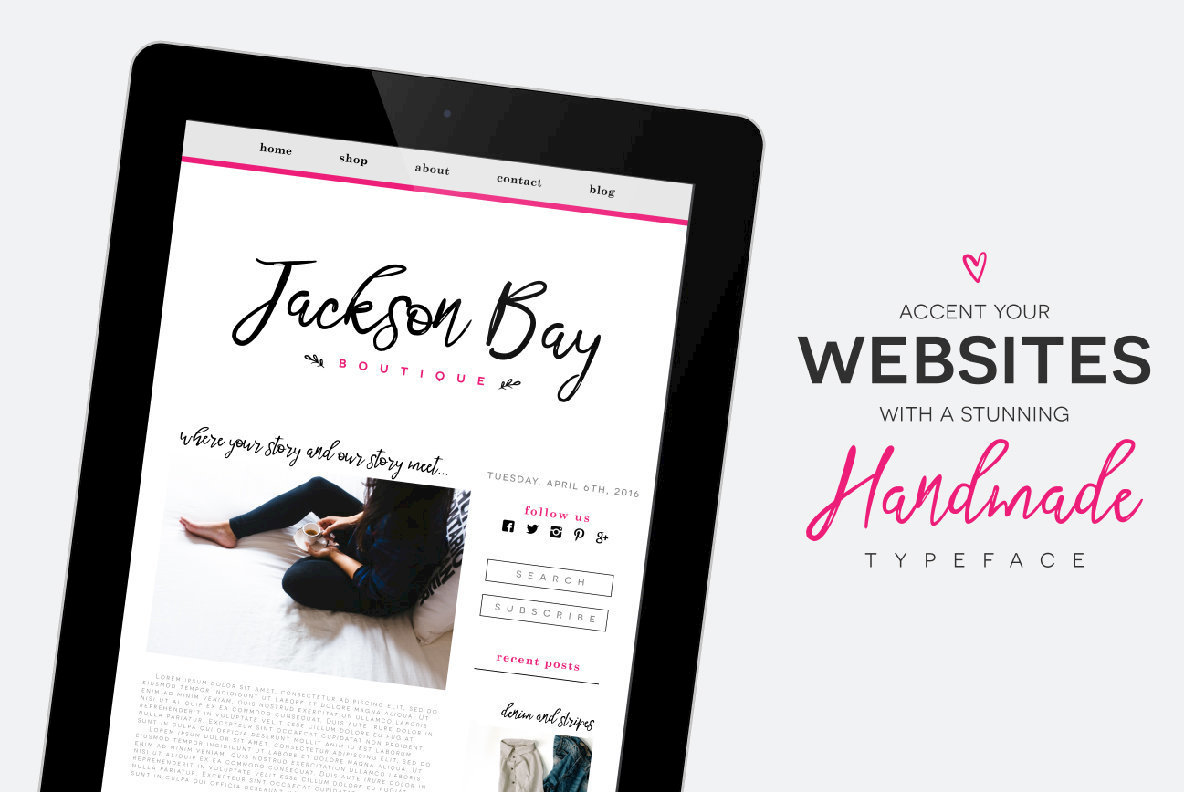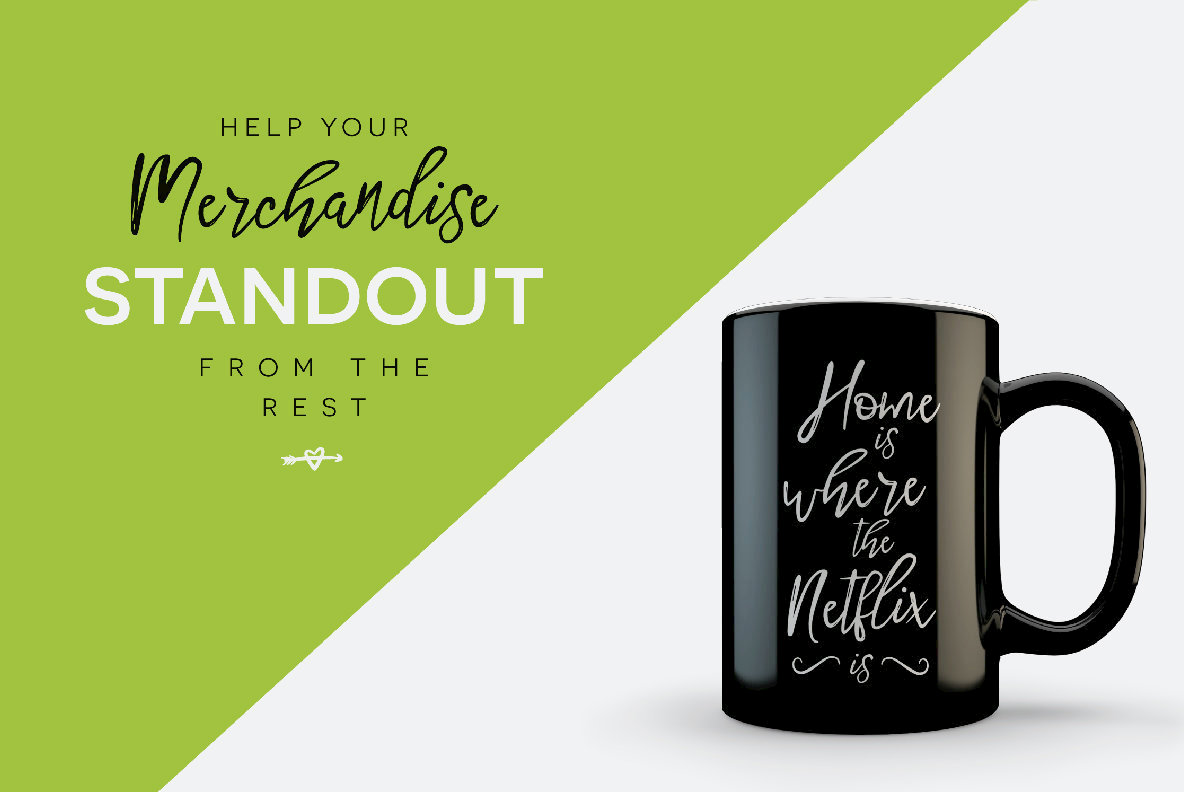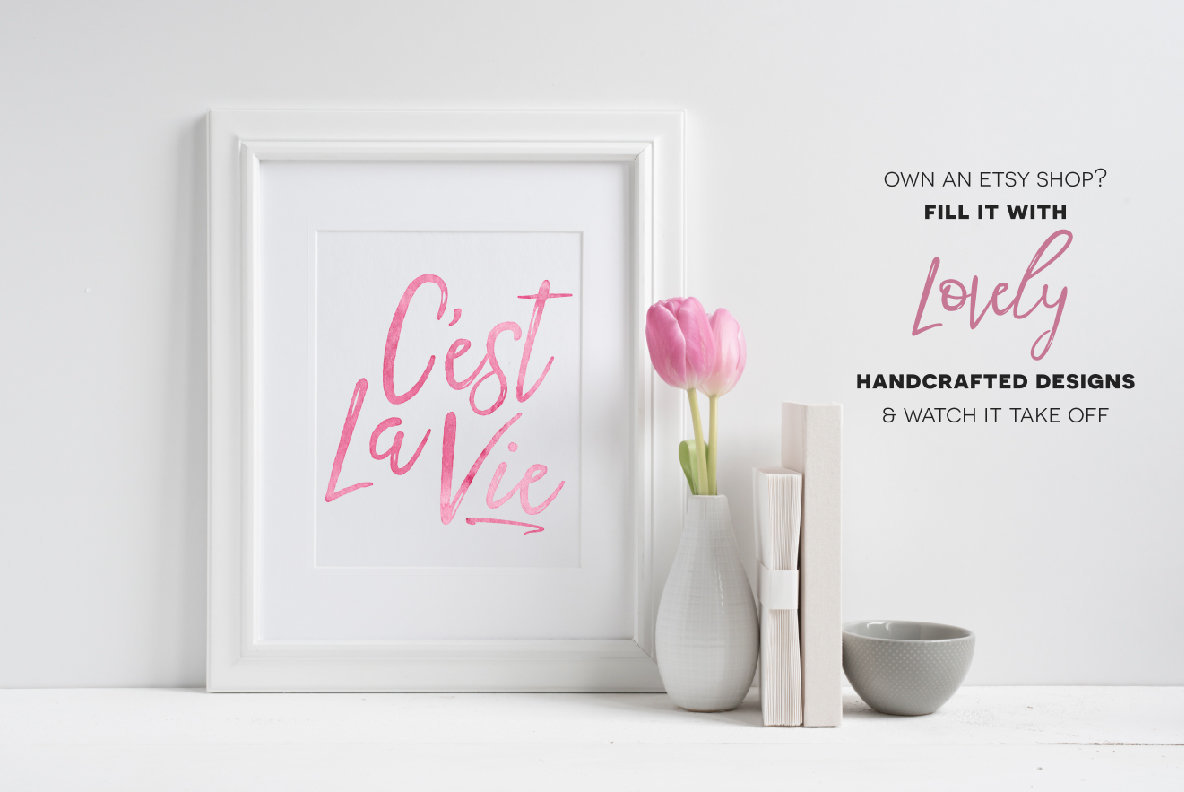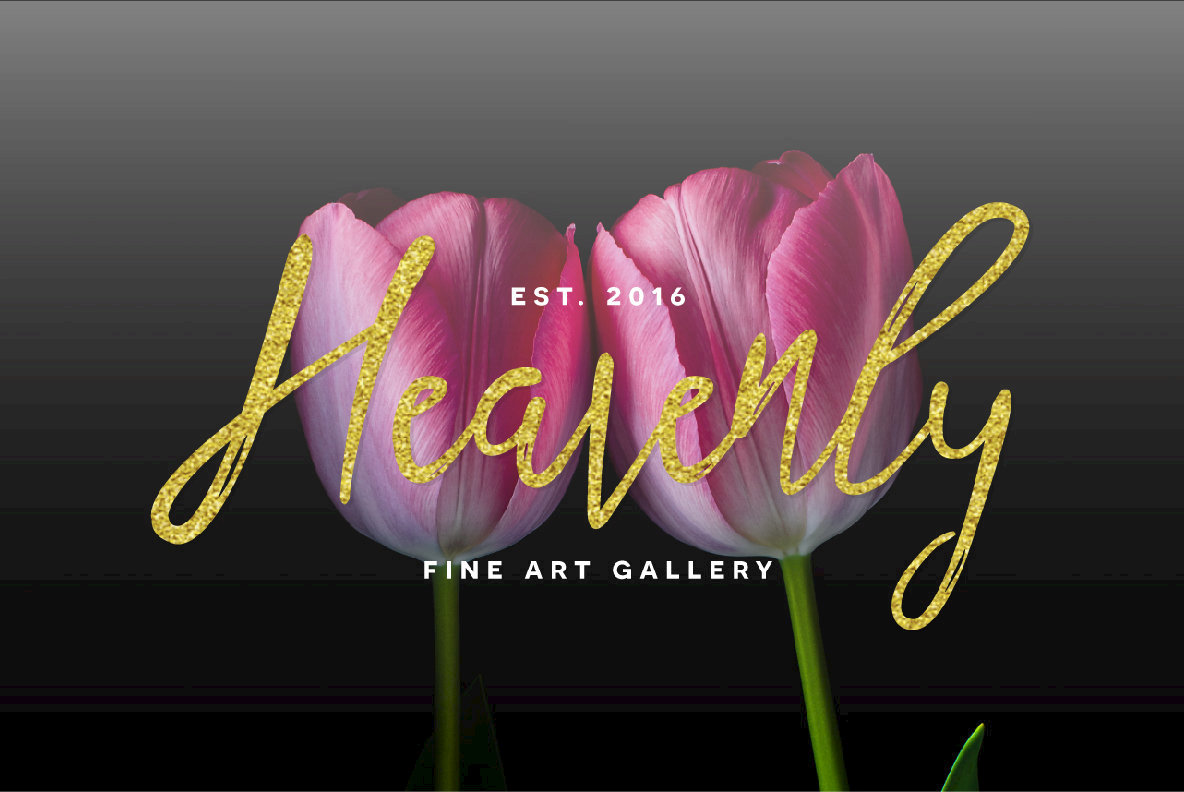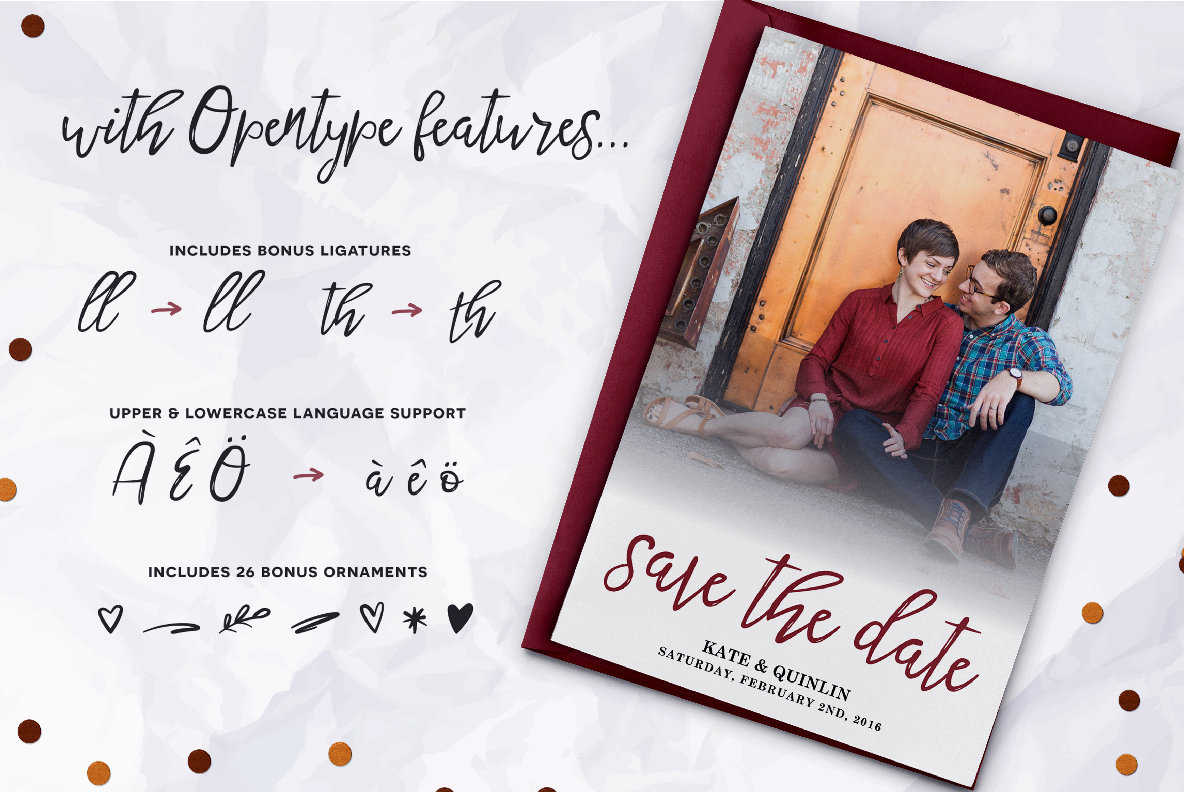
Twenty Nine Font
Twenty Nine is a playful and flirty script font with a bouncy baseline and some sweet bonuses! It's marker brush strokes give it a fun and stylish aesthetic perfect for prints, greeting cards, typography quotes, branding, and more! Plus add the The Bonus Ornaments to your designs and quickly catch your customers eye! Use it in ink, watercolor, or gold foil based designs or all on its own! Handcrafted fonts have taken the design world by storm. Grab this one and you'll have all you need to start kicking tail and taking names!
3) Over 100 Bonus Glyphs including International Language Support (English, French, Spanish, German, Polish, Italian Portuguese), and some other fun ligatures